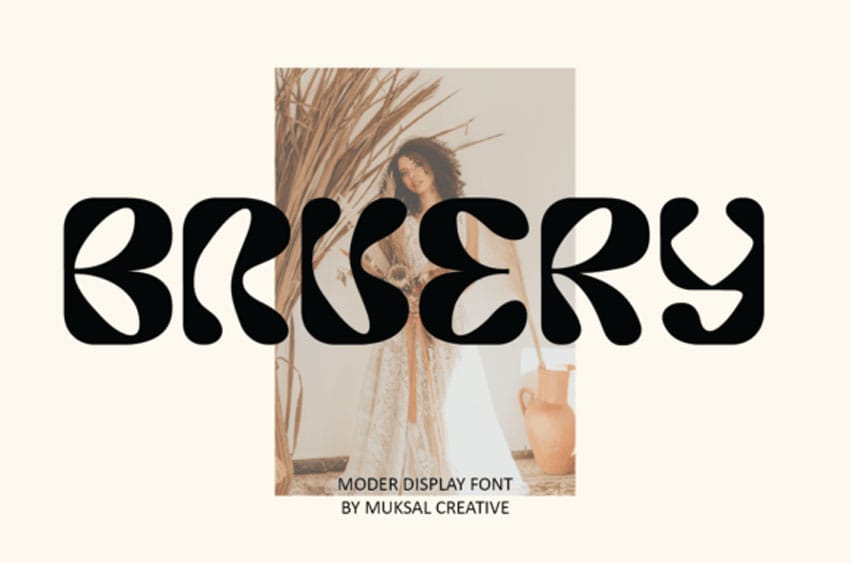
Bavery Font is a modern and versatile display font perfect for editorial projects, logo design, clothing, branding, product packaging, magazine headers, or simply as a stylish text overlay to any background image.
Perfectly crafted to meet all your design needs.